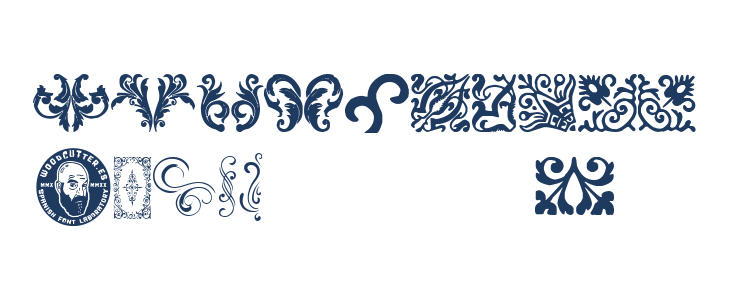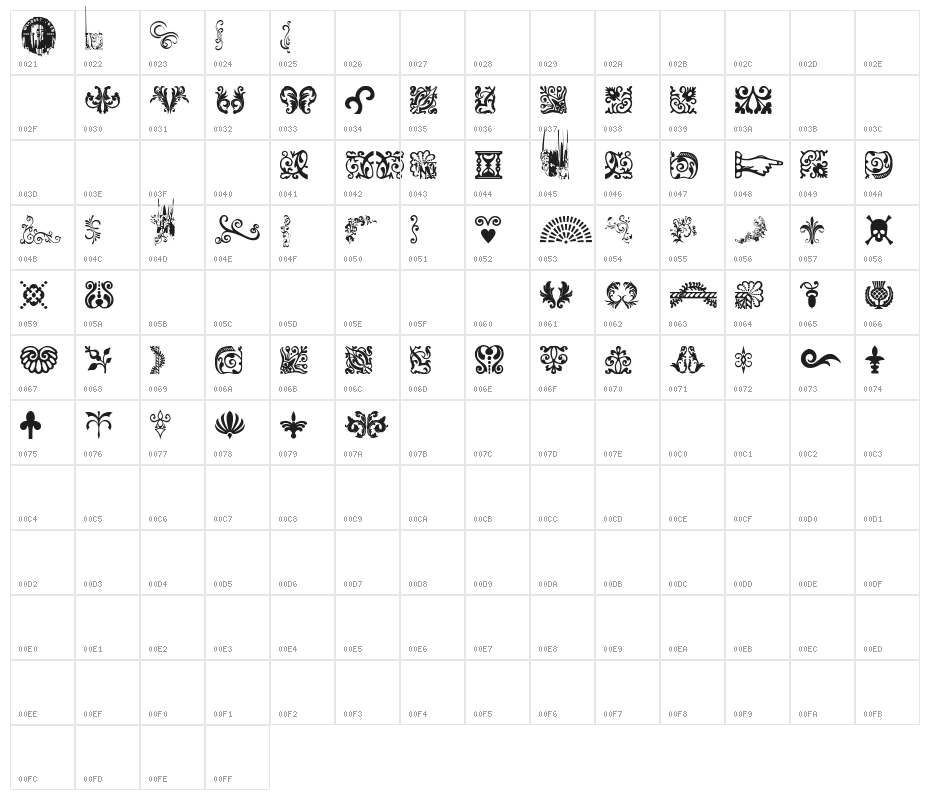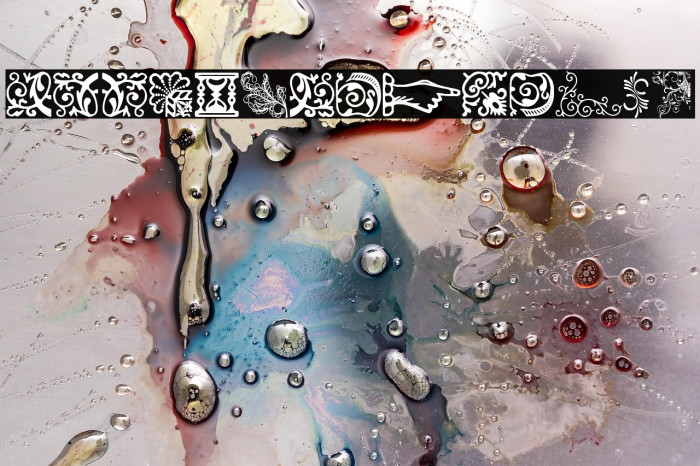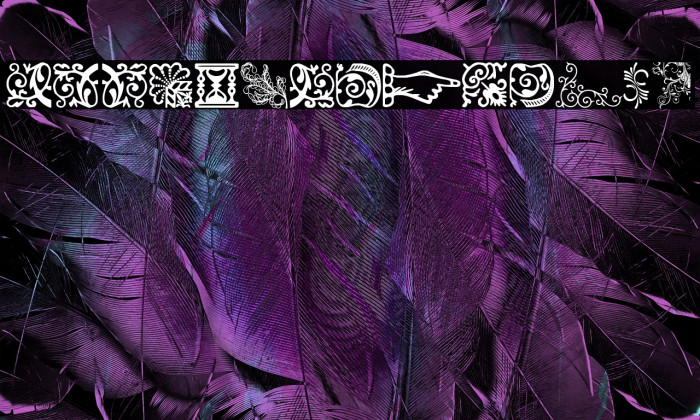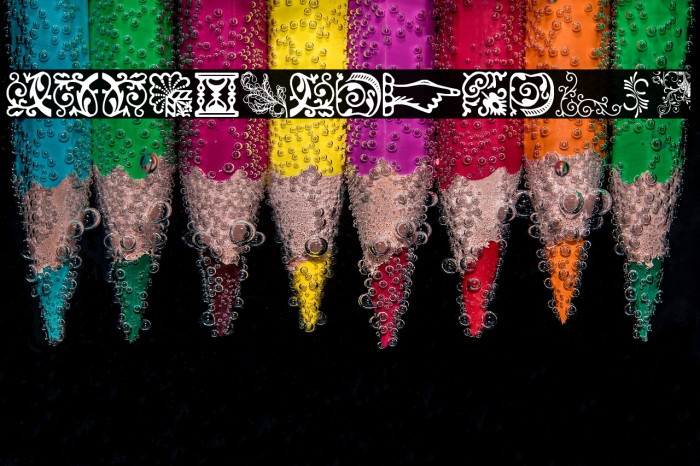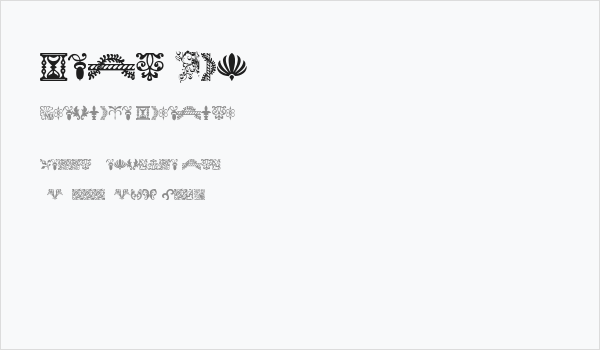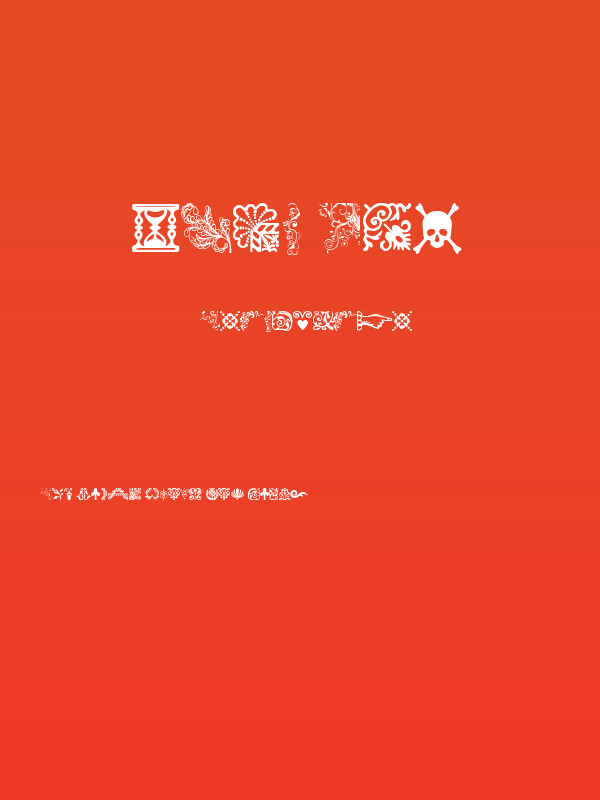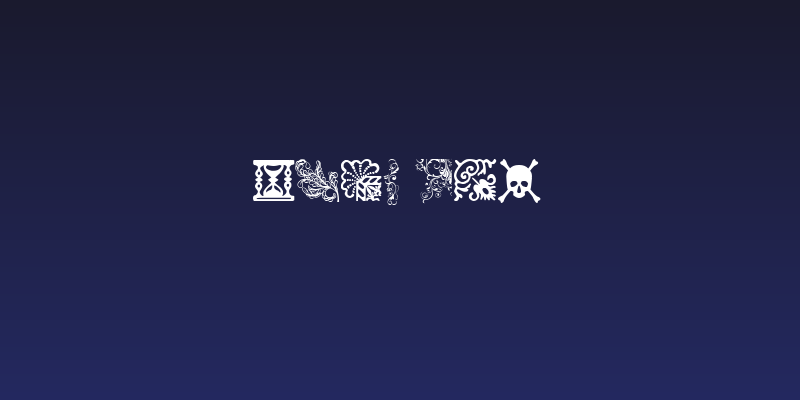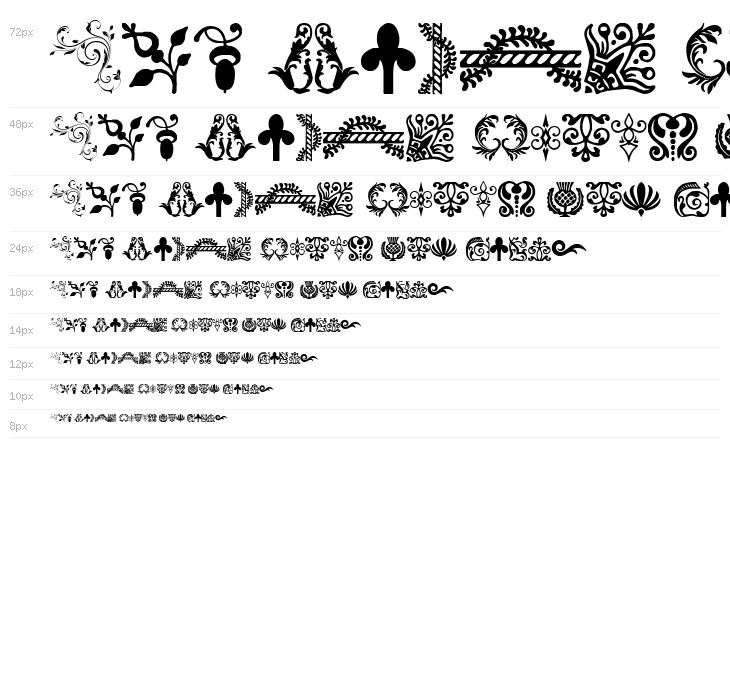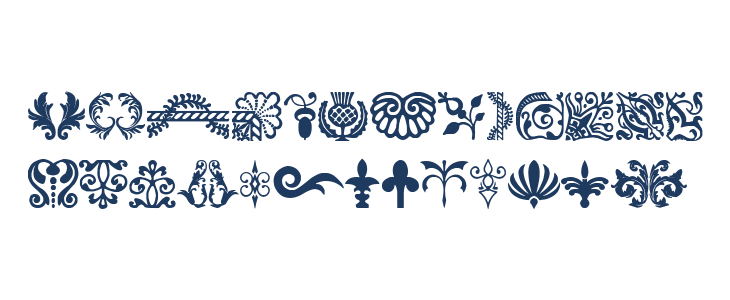
Deco Mix Font
Deco Mix Description
This collection features a diverse array of decorative elements, each intricately designed with a vintage flair. The motifs include floral patterns, ornate swirls, and abstract shapes, all rendered with a high level of detail. The elements are reminiscent of classic art deco styles, characterized by their bold geometric shapes and elaborate ornamentation. These designs are perfect for adding a touch of elegance and sophistication to any project. The collection includes a variety of shapes and symbols, each with its own unique character, making it versatile for different design needs.
| Overall Style | Vintage |
| Use Case | Decorative elements, Borders, Invitations |
| Proposed Projects | Ideal for use in wedding invitations, vintage-themed posters, decorative borders, and branding materials that require a touch of elegance. |